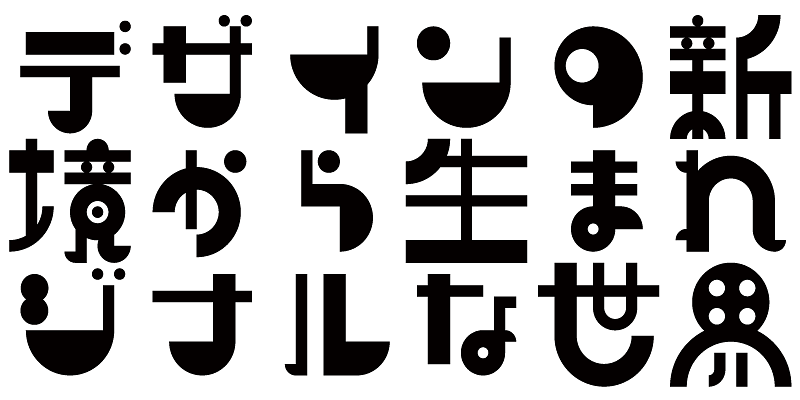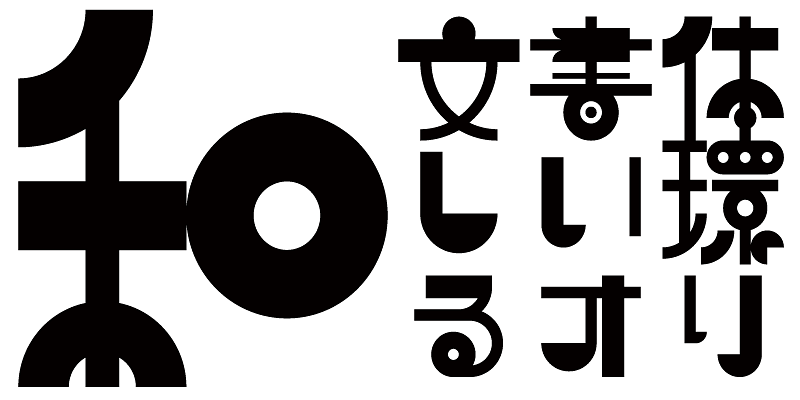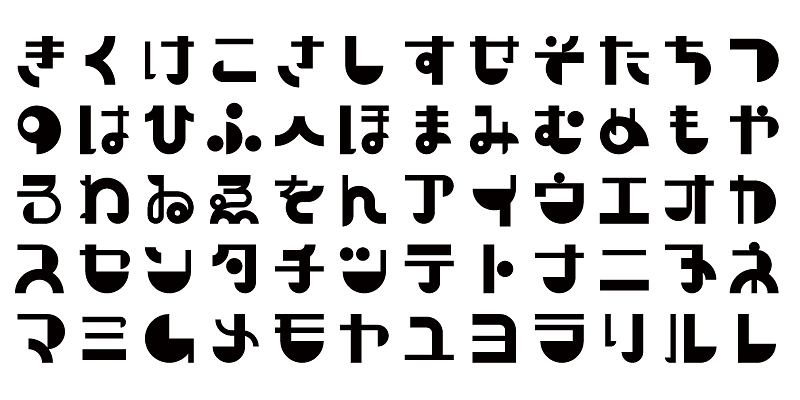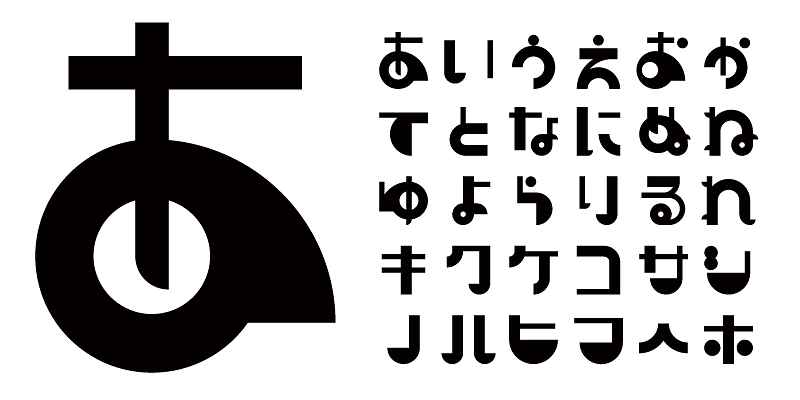
In Japanese, the word “gothic” is also pronounced as “go_thic”. If something is like a fairy tale (“märchen” in German), we sometimes say it’s “meru-hen-thic”. And the word “otome-gokoro” (a girl’s mind) may be called “otome-thic”. Similarly, this typeface, “Manga_thic” is intended to be a typeface whose style shares the image of manga comics.